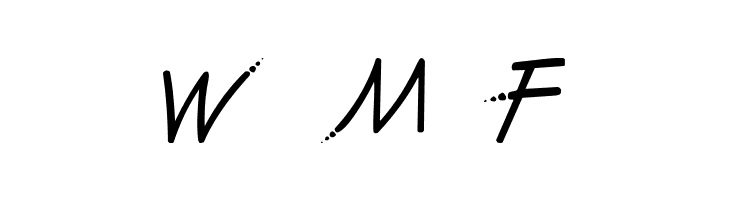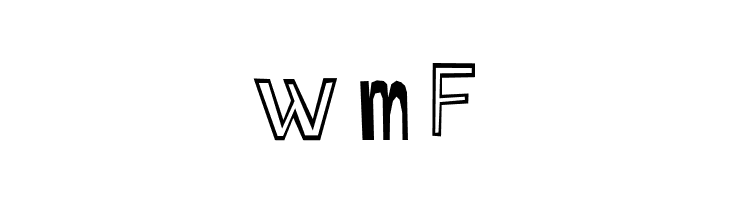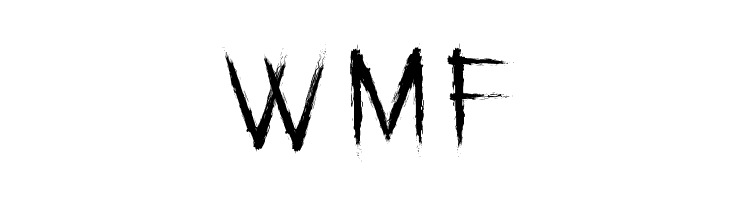
( Daniel Plant - www.fontmonster.org )
A playful, hand-drawn script with irregular, expressive strokes.
( Dingbat Crazy - dingbatcrazy.fateback.com/ )
A diverse collection of uniquely styled arrows for versatile design use.
( Font Environment - www.fontenvironment.com/ )
A calligraphic mirror writing font with elegant curves and historical charm.
( Font Monger - www.fontmonger.com )
A bold, distressed font with a hand-drawn, grunge aesthetic.
( Footnote Fonts )
A playful and eclectic font with diverse character styles and bold numbers.
( George Williams - web.archive.org/web/20051223080638/bibliofile.mc.duke.edu/gww/fonts/fonts.html )
A decorative outline font with a blend of geometric and organic shapes.
( Intellecta Design - new.myfonts.com/search/intellecta/fonts/?sort=sales?refby=paulow )
Ornate, hand-drawn calligraphic frames with vintage flair.
( John Stracke - www.thibault.org/fonts/ )
A playful, space-themed font with unique character embellishments.
( Lostvoltype Foundry - creativemarket.com/lostvoltype )
A dynamic, cursive font with fluid strokes and a modern, stylish appearance.
( Maydanaip )
A playful, decorative font with heart motifs and bold, modern characters.
( Nouman )
An energetic, italic font with jagged, textured strokes.
( Ouripedes Gallene )
A dynamic, brush-style font with medium contrast and a handwritten feel.
( Perry Mason )
A decorative font made up of diverse cartoon eye illustrations.
( Pete Klassen - www.thehutt.de/tolkien/fonts.html )
A decorative, medieval-inspired font with sharp, angular strokes and ornate details.
( Pi's Room - isweb13.infoseek.co.jp/diary/pi_/ )
A festive, decorative font with Christmas-themed elements and playful elf figures.
( Robert Pfeffer - robert-pfeffer.net/schriftarten/englisch/index.html )
A bold, geometric font with angular lines and a strong visual impact.
( SamOnt )
An artistic, ancient-inspired font with flowing, decorative forms.
A playful, fluid font with irregular, liquid-like shapes and dynamic strokes.
A bold, handwritten-style font with dynamic, slanted characters.
A decorative display font made entirely of diverse arrow designs.
A decorative and eclectic font with unique, artistic characters.
A playful, hand-drawn font with bold, varied strokes and a whimsical style.
A casual, handwritten font with irregular, organic strokes.
An eclectic and experimental font with varied, unbalanced letterforms.
A playful, hand-drawn font with irregular, organic lines.
An eclectic, ransom-note style font with varied character styles and orientations.
( Fonts by junkohanhero - Personal-use only. For commercial use please contact owner. )
A bold, eclectic display font with a ransom note style and modern twist.
( Fonts by junkohanhero - Personal-use only. For commercial use please contact owner. )
A distressed, grunge-style font with a bold, rugged appearance.
( marty bee )
An abstract, eclectic font with playful, artistic character designs.
( Fonts by Billy Argel )
A playful, handwritten font with smooth, rounded strokes and a casual vibe.
A fluid and elegant handwritten script font with a natural flow.